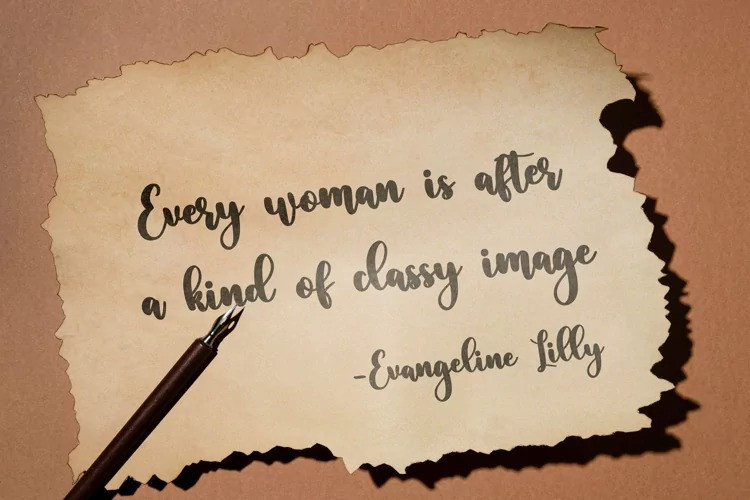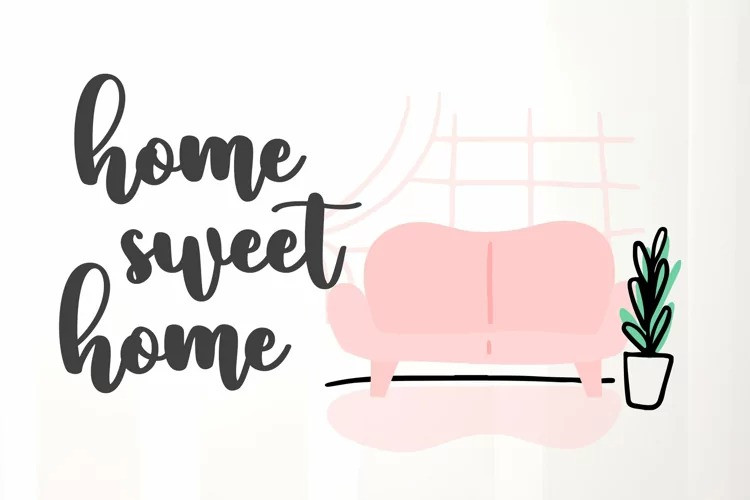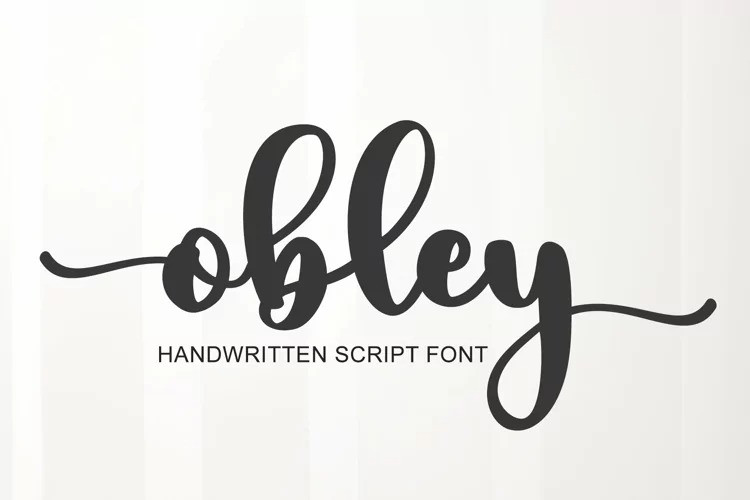
Obley Font
Obley Font is a romantic and sweet calligraphy typeface with characters that dance along the baseline. It will add a luxury spark to any design project that you wish to create! This font is PUA encoded which means you can access all of the amazing glyphs and ligatures with ease!